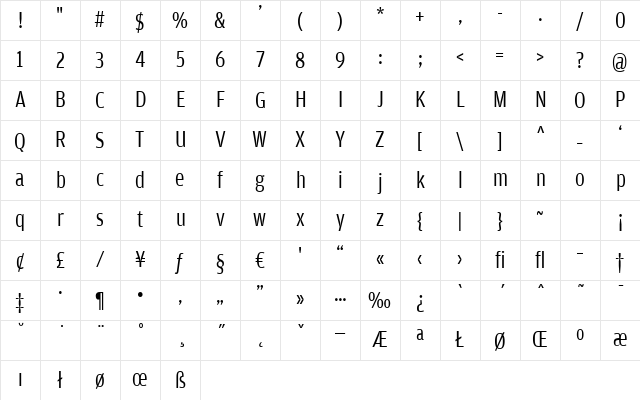
AmplitudeCond-Book Regular Free Font
AmplitudeCond-Book Regular
Foundry: The Font Bureau, Inc
Designer: Christian Schwartz
Design Context for AmplitudeCond-Book
AmplitudeCond-Book is a composed and adaptable typeface that performs quietly and consistently across a wide range of design contexts. Its narrow stance lets it pack a punch even in space-constrained designs.